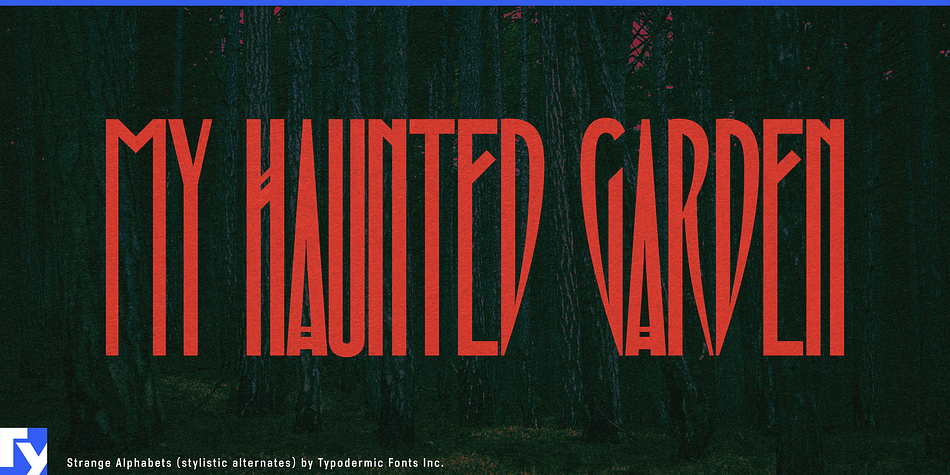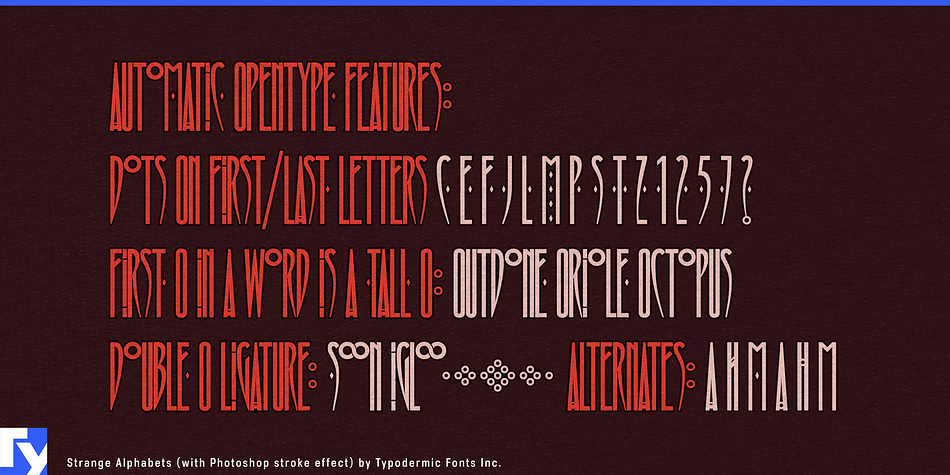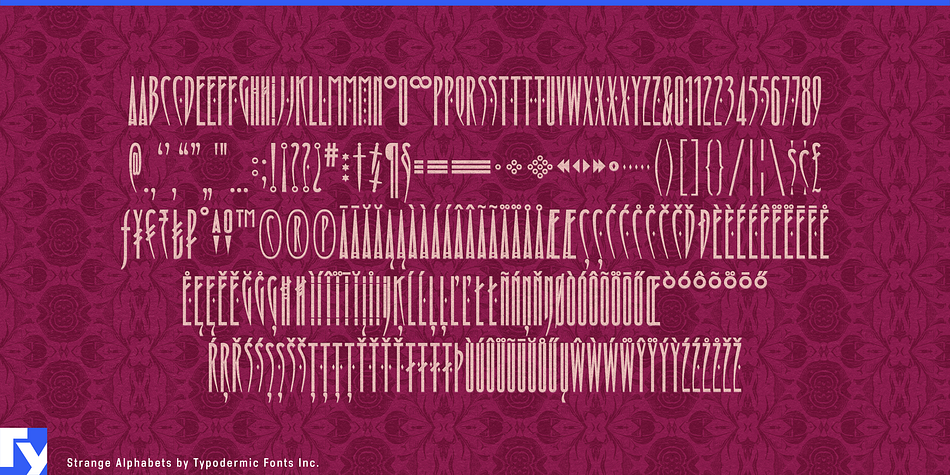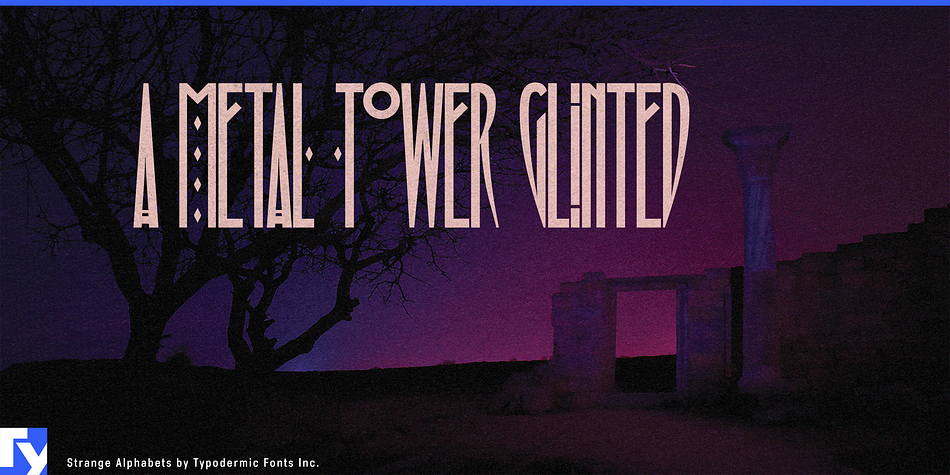
Strange Alphabets is an art nouveau and retro font published by Typodermic Fonts Inc.
Strange Alphabets is a narrow Arts & Crafts display typeface inspired by late nineteenth century book covers and an early 1980s variation of the Siouxsie & the Banshees band logo. Strange Alphabets includes copious punctuation and symbols. It’s loaded with fractions, numeric ordinals, and operators because everyone needs that sort of thing, especially goths. In OpenType savvy applications, the first and last letter of a word will receive a small diamond ornament. If a word starts with M, the single diamond splits into three. Words starting with O will automatically use a tall O. If you’d like to force a tall O in the middle of the word, use a zero. Words that start with a double O such as Oolong, will receive a pair of tall O’s. A pair of O’s in the middle or at the end of a word will be replaced by a linked ring ligature. If your application allows you to access OpenType stylistic alternates, you can change the A and H crossbars into small rings and remove all the diamonds from the M. The hyphen, en dash and em dash are replaced with ring ornaments. A separate diamond ornament ◆ is included under Unicode 25C6. If that sounds too complicated, play with your application’s OpenType features, and see what happens. If you want to disable the automatic OpenType substitutions, turn off your application’s standard ligatures feature. Most Latin-based European writing systems are supported, including the following languages. Afaan Oromo, Afar, Afrikaans, Albanian, Alsatian, Aromanian, Aymara, Bashkir (Latin), Basque, Belarusian (Latin), Bemba, Bikol, Bosnian, Breton, Cape Verdean, Creole, Catalan, Cebuano, Chamorro, Chavacano, Chichewa, Crimean Tatar (Latin), Croatian, Czech, Danish, Dawan, Dholuo, Dutch, English, Estonian, Faroese, Fijian, Filipino, Finnish, French, Frisian, Friulian, Gagauz (Latin), Galician, Ganda, Genoese, German, Greenlandic, Guadeloupean Creole, Haitian Creole, Hawaiian, Hiligaynon, Hungarian, Icelandic, Ilocano, Indonesian, Irish, Italian, Jamaican, Kaqchikel, Karakalpak (Latin), Kashubian, Kikongo, Kinyarwanda, Kirundi, Kurdish (Latin), Latvian, Lithuanian, Lombard, Low Saxon, Luxembourgish, Maasai, Makhuwa, Malay, Maltese, Māori, Moldovan, Montenegrin, Ndebele, Neapolitan, Norwegian, Novial, Occitan, Ossetian (Latin), Papiamento, Piedmontese, Polish, Portuguese, Quechua, Rarotongan, Romanian, Romansh, Sami, Sango, Saramaccan, Sardinian, Scottish Gaelic, Serbian (Latin), Shona, Sicilian, Silesian, Slovak, Slovenian, Somali, Sorbian, Sotho, Spanish, Swahili, Swazi, Swedish, Tagalog, Tahitian, Tetum, Tongan, Tshiluba, Tsonga, Tswana, Tumbuka, Turkish, Turkmen (Latin), Tuvaluan, Uzbek (Latin), Venetian, Vepsian, Võro, Walloon, Waray-Waray, Wayuu, Welsh, Wolof, Xhosa, Yapese, Zapotec Zulu and Zuni.